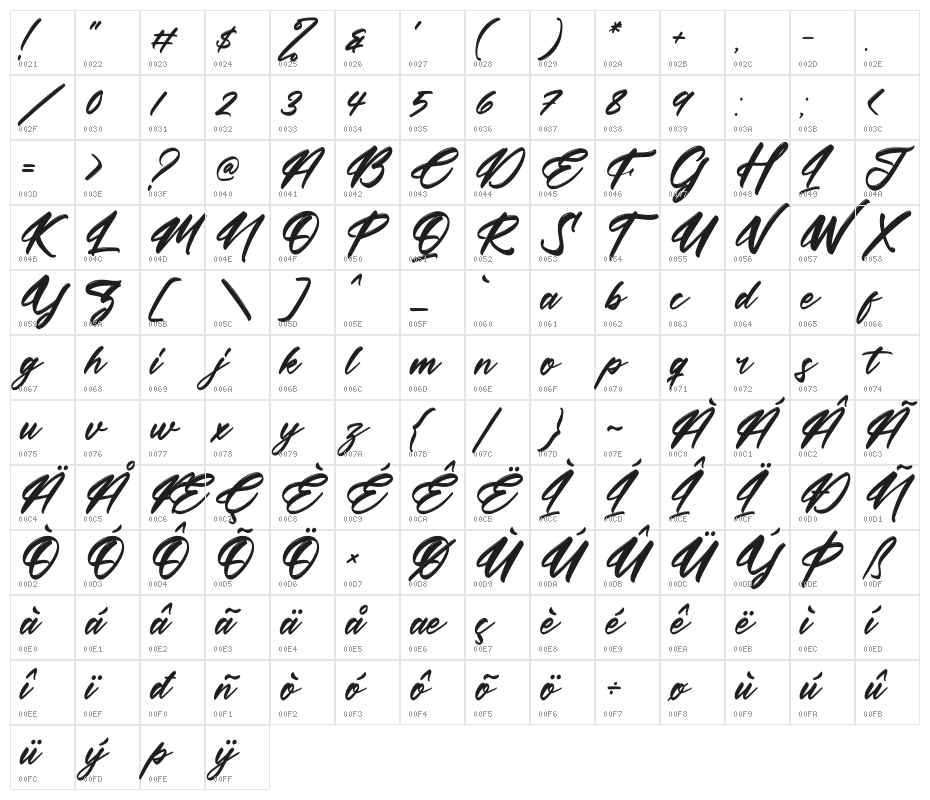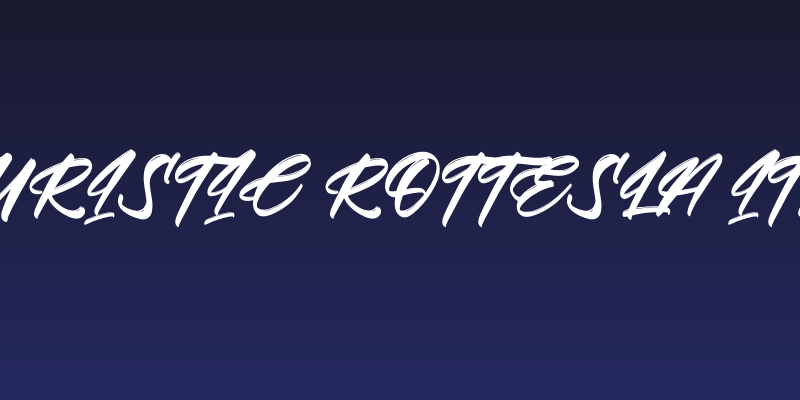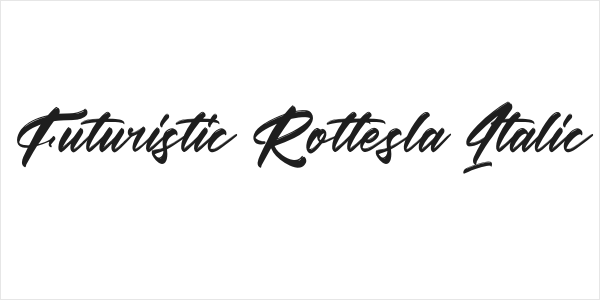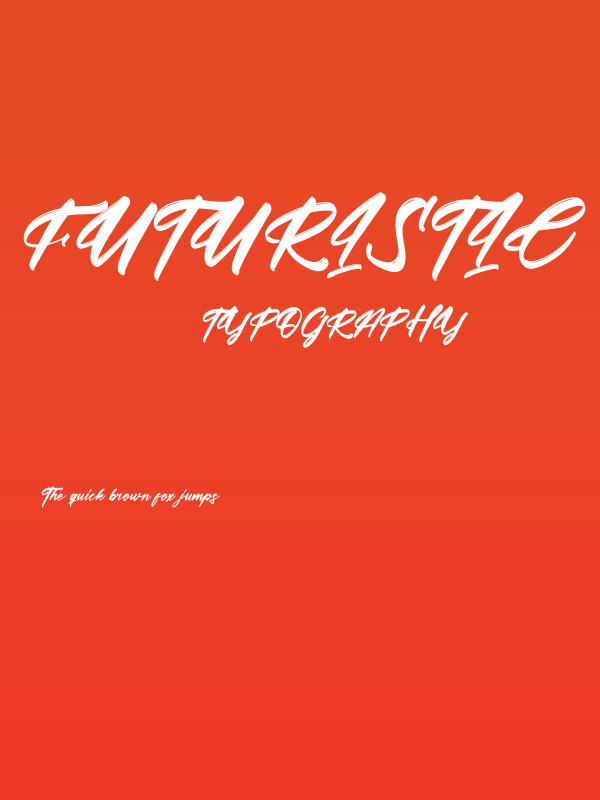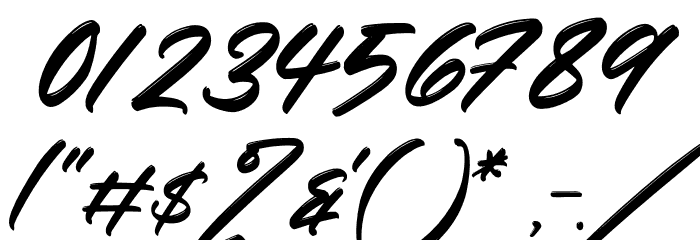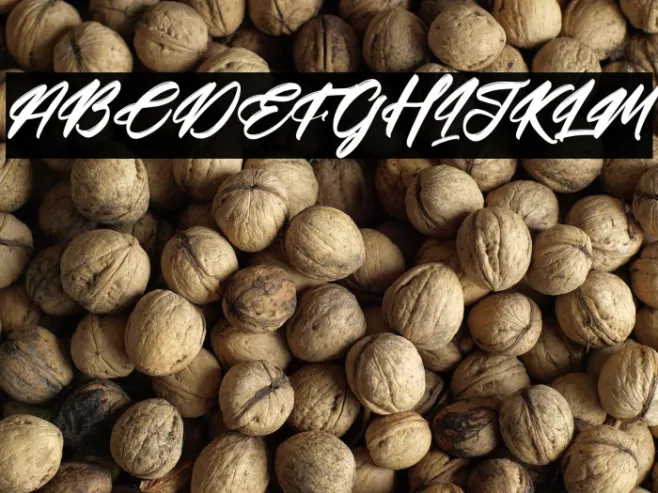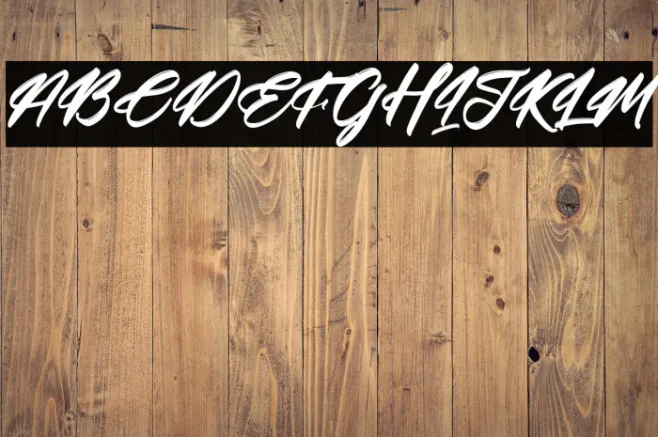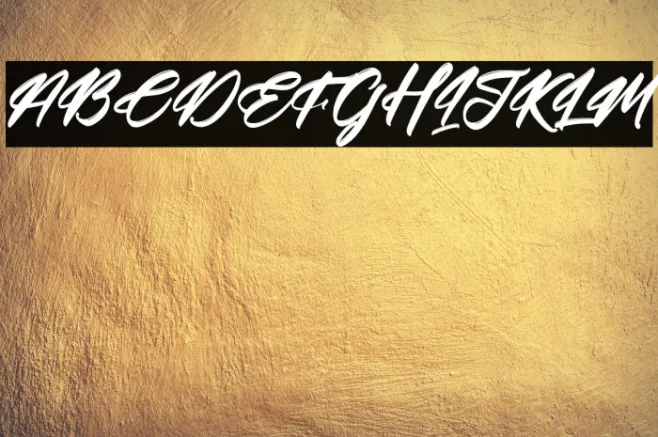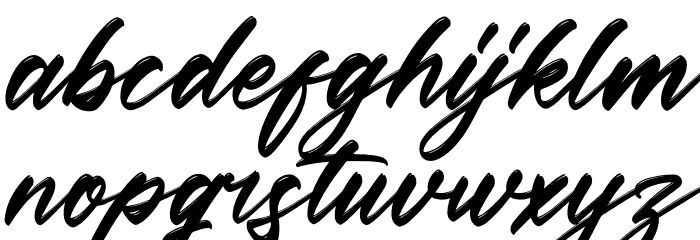
Futuristic Rottesla Italic Font
Futuristic Rottesla Italic Description
This font features a dynamic and energetic script style, characterized by its flowing, cursive letterforms that convey a sense of movement and fluidity. The strokes are bold and confident, with a slight slant that adds to its modern and futuristic appeal. Each character is distinct yet harmoniously connected, creating a cohesive and visually appealing text. The uppercase letters are particularly striking, with exaggerated loops and curves, while the lowercase letters maintain a consistent rhythm. The numerals and special characters are designed to match the overall aesthetic, ensuring versatility across various applications.
| Use Case | Logos, Headlines, Branding |
| Proposed Projects | Ideal for branding projects, logo design, product packaging, and promotional materials that require a modern and stylish touch. |